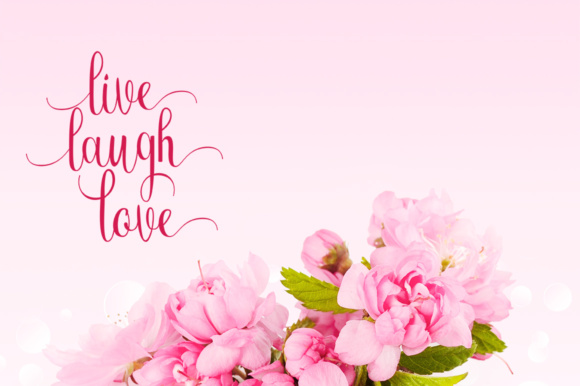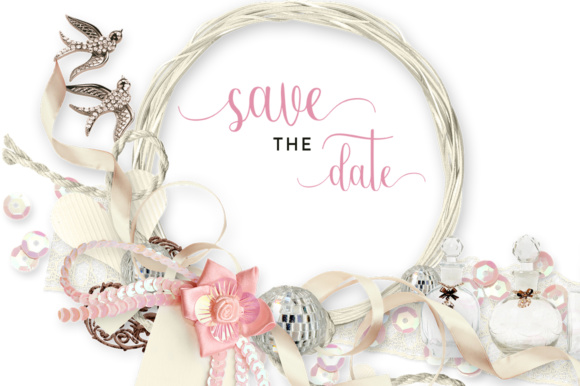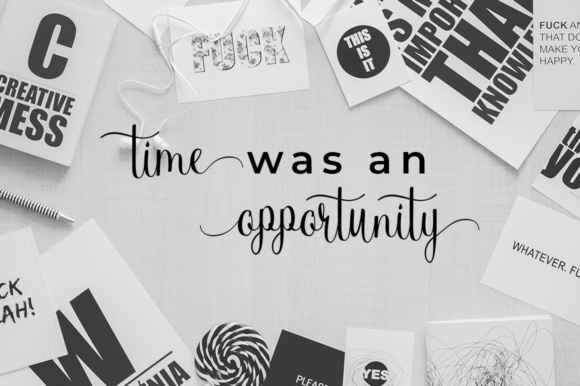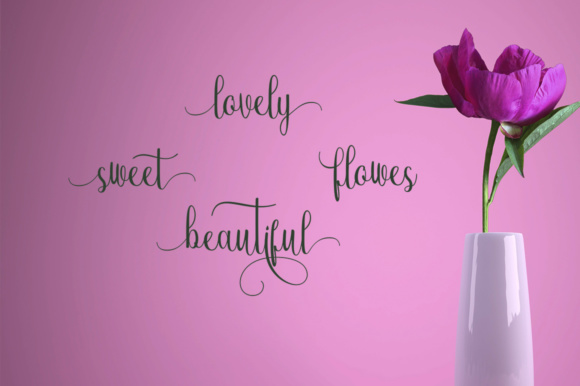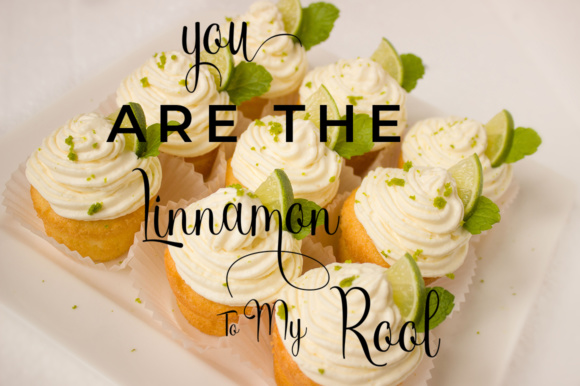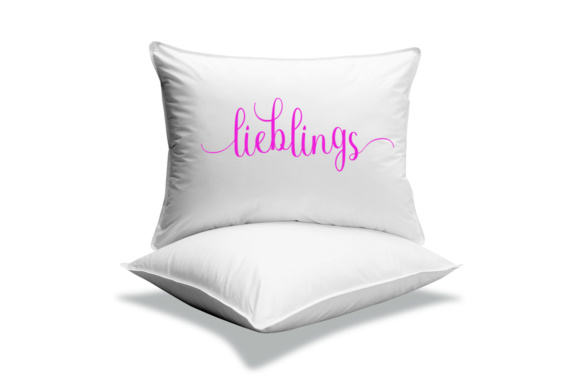
Introducing Alissa Thomas Script Font: Elevate Your Design with Elegant Calligraphy
In the world of typography, few fonts manage to capture the essence of elegance and sophistication as effectively as the Alissa Thomas script font. This modern calligraphy font is a game-changer for designers and crafters looking to add a touch of refinement to their projects. With its flowing letters that dance along the baseline, Alissa Thomas brings a level of class and poise to any design.
The Characteristics of Alissa Thomas Script Font
Alissa Thomas is a script font that embodies the beauty of handwritten calligraphy. Its key characteristics include:
- Modern Calligraphy Style: Alissa Thomas boasts a contemporary take on traditional calligraphy, making it perfect for projects that demand a fresh yet sophisticated look.
- Flowing Letters: The font’s letters are designed to flow smoothly along the baseline, creating a harmonious and visually appealing effect.
- Elegant Touch: The overall design of Alissa Thomas adds an elegant touch to any project, making it suitable for a wide range of applications, from wedding invitations to brand logos.
- Versatility: This font is incredibly versatile, capable of complementing both digital and print designs.
Uses of Alissa Thomas Script Font
The versatility of Alissa Thomas script font makes it an excellent choice for various design projects. Here are some of the most popular uses:
- Wedding and Event Invitations: Add a touch of elegance to your wedding or event invitations with Alissa Thomas, making the occasion even more special.
- Branding and Logos: For businesses looking to establish a sophisticated brand image, Alissa Thomas can be a valuable asset in creating memorable logos and marketing materials.
- Stationery and Greeting Cards: Elevate your stationery and greeting cards with a personal touch of elegance, making them stand out from the ordinary.
- Digital Content: Whether it’s blog headers, social media graphics, or website titles, Alissa Thomas can add a professional and stylish flair to your digital content.
Tips for Using Alissa Thomas Script Font Effectively
To maximize the impact of Alissa Thomas in your designs, consider the following tips:
- Pair with Complementary Fonts: For optimal readability and aesthetic appeal, pair Alissa Thomas with clean, sans-serif fonts for body text.
- Adjust Letter Spacing: Fine-tune the letter spacing to ensure that the flowing nature of the font is preserved without compromising readability.
- Consider Font Size: Use larger font sizes for headings and titles to make a bold statement, and smaller sizes for body text to maintain elegance without overwhelming the reader.
- Experiment with Colors: While black and dark tones work well for elegance, don’t hesitate to experiment with colors that match your brand or design theme.
Alissa Thomas script font is a powerful tool for designers and crafters aiming to infuse their projects with a sense of elegance and modernity. Its unique blend of traditional calligraphy and contemporary style makes it a versatile choice for a myriad of applications. By incorporating Alissa Thomas into your design repertoire, you’re equipped to create stunning, professional-grade work that leaves a lasting impression.